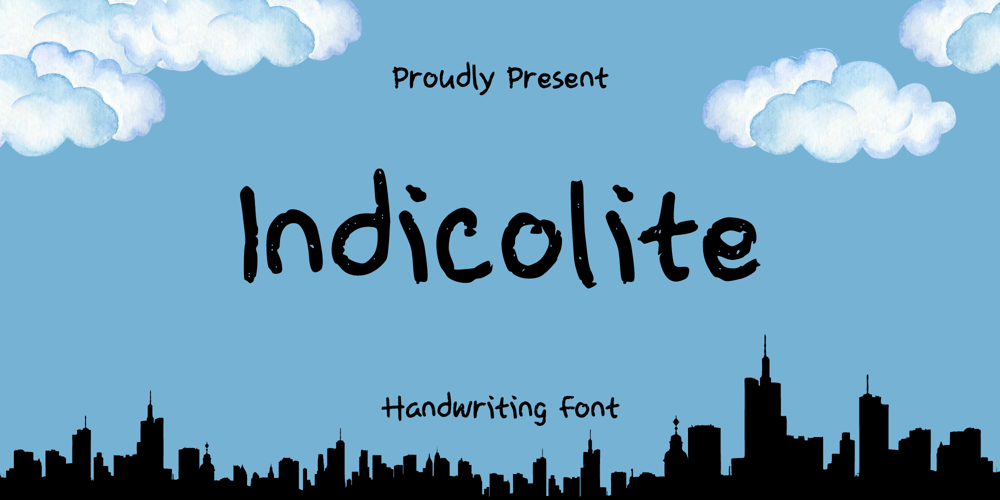
Indicolite
Indicolite font
Indicolite Font Family was designed by published by Sidkia Fonts. Indicolite contains 1 styles and family package options. Indicolite is a handwritten font that is like writing with chalk or a crayon. Add it to your crafty ideas and enjoy the results!